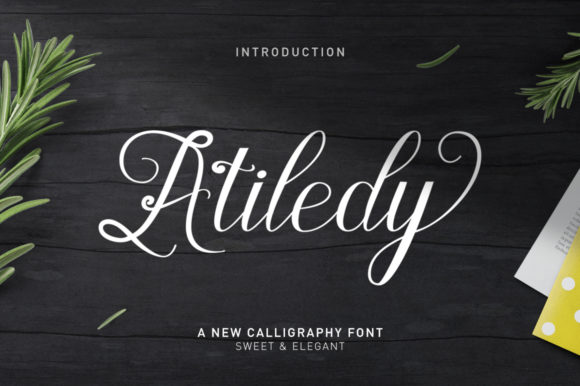
**Introducing Atiledy Script Font: Where Classic Charm Meets Modern Flair**
Prepare to be captivated by the enchanting Atiledy Script Font, a stunning display font that exudes timeless grace and contemporary allure. Crafted with meticulous precision by the renowned Nandatype, this font embodies the essence of classic typography, seamlessly blended with a touch of modern sophistication.
Immerse yourself in the timeless elegance of Atiledy's meticulously crafted curves and flourishes. Each letter dances across the page with a graceful fluidity, evoking a sense of nostalgia and timeless appeal. Whether you're seeking to create captivating headlines, alluring invitations, or enchanting branding materials, Atiledy's versatility knows no bounds.
Unleash your creativity and let Atiledy's charm transport you to a realm of endless possibilities. Its bold strokes command attention, while the delicate flourishes add a touch of whimsy and enchantment. Each character is a masterpiece, meticulously designed to convey a sense of authenticity and sophistication.
With Atiledy as your creative ally, your designs will radiate an unmistakable aura of timeless elegance and modern flair. Its versatility transcends genres, making it an ideal choice for a wide range of projects, from vintage-inspired invitations to cutting-edge branding campaigns.
Indulge in the beauty and versatility of Atiledy Script Font, and experience the transformative power of timeless typography. Let its bold strokes and whimsical flourishes ignite your imagination and elevate your designs to new heights of enchantment and sophistication. Embrace Atiledy today and unlock a world of creative possibilities.